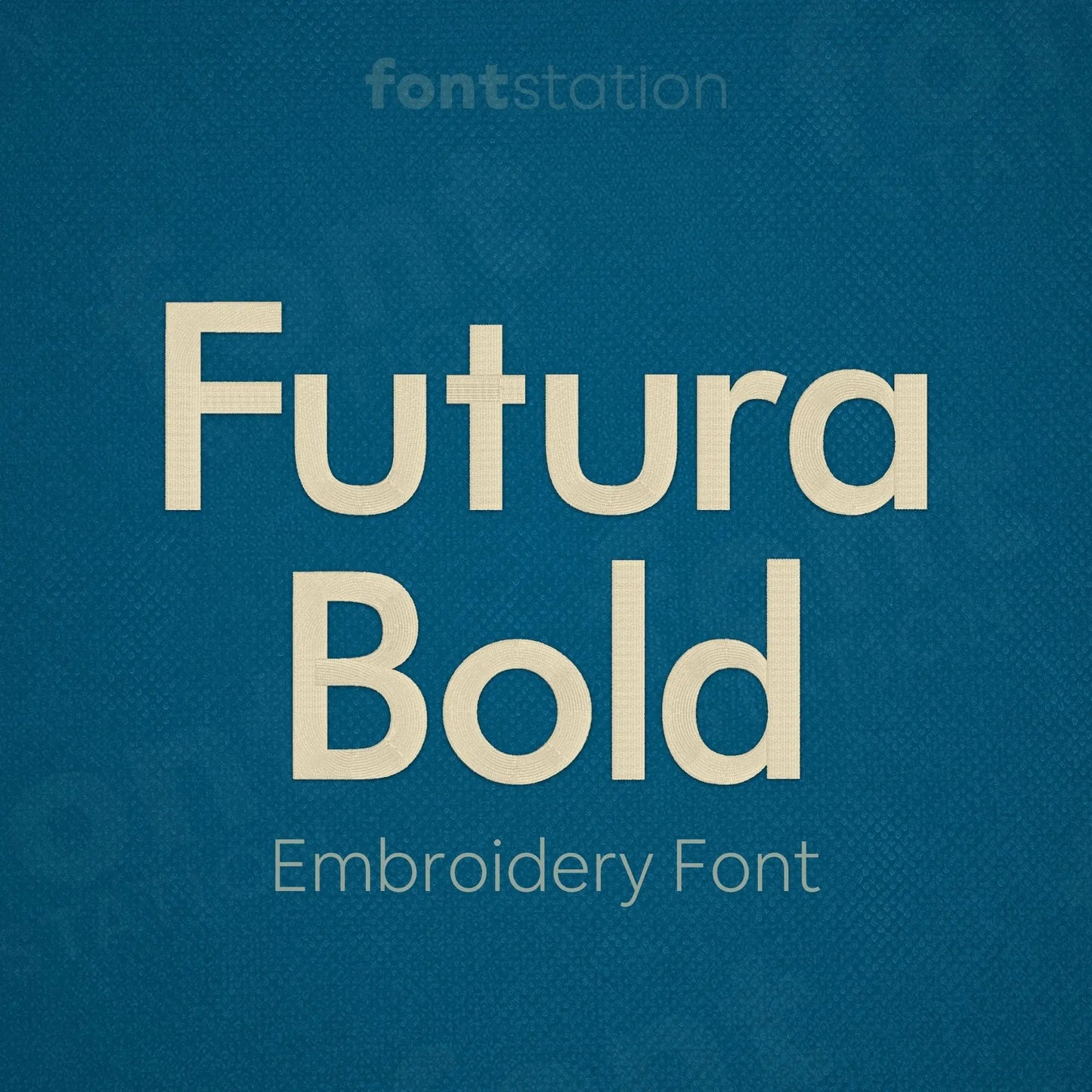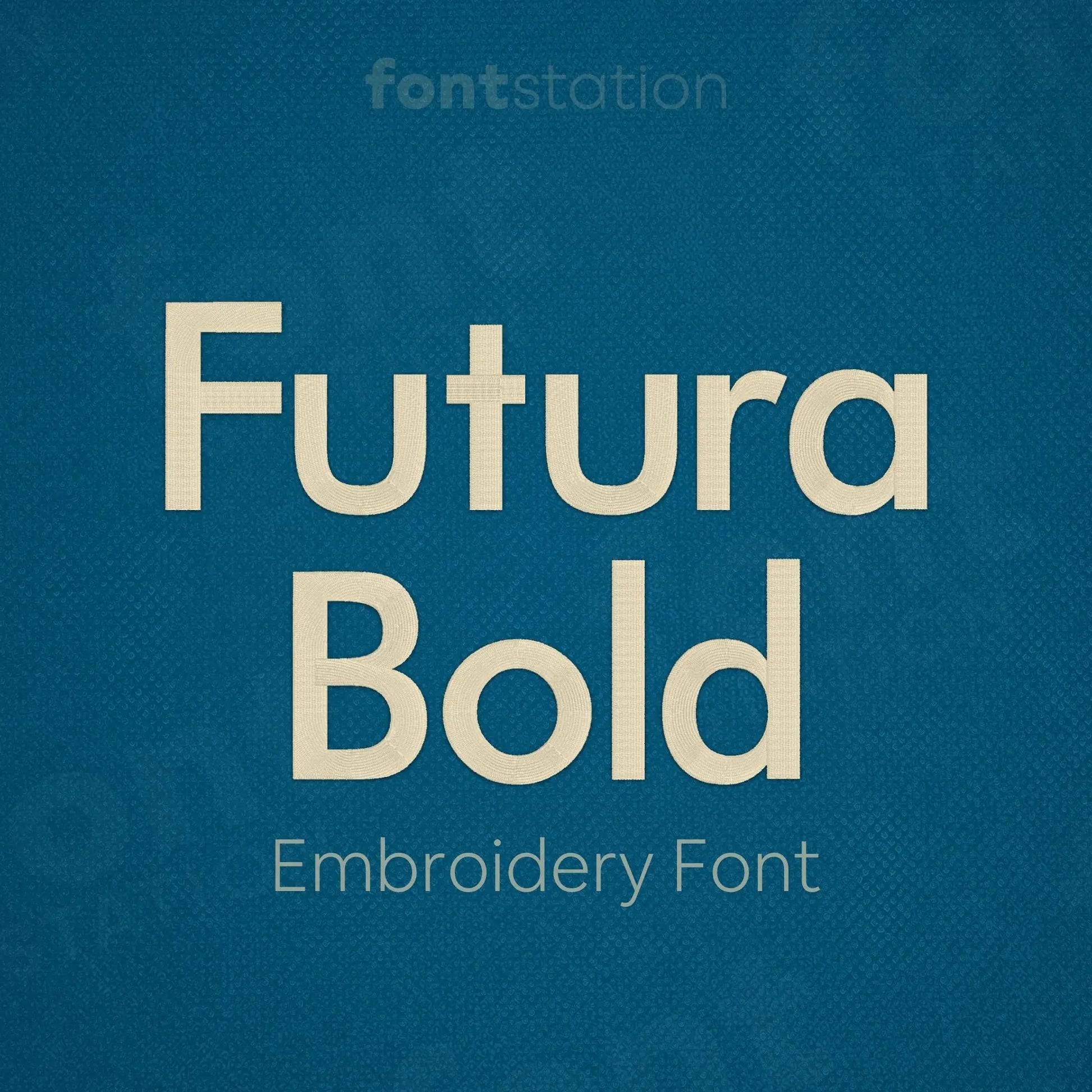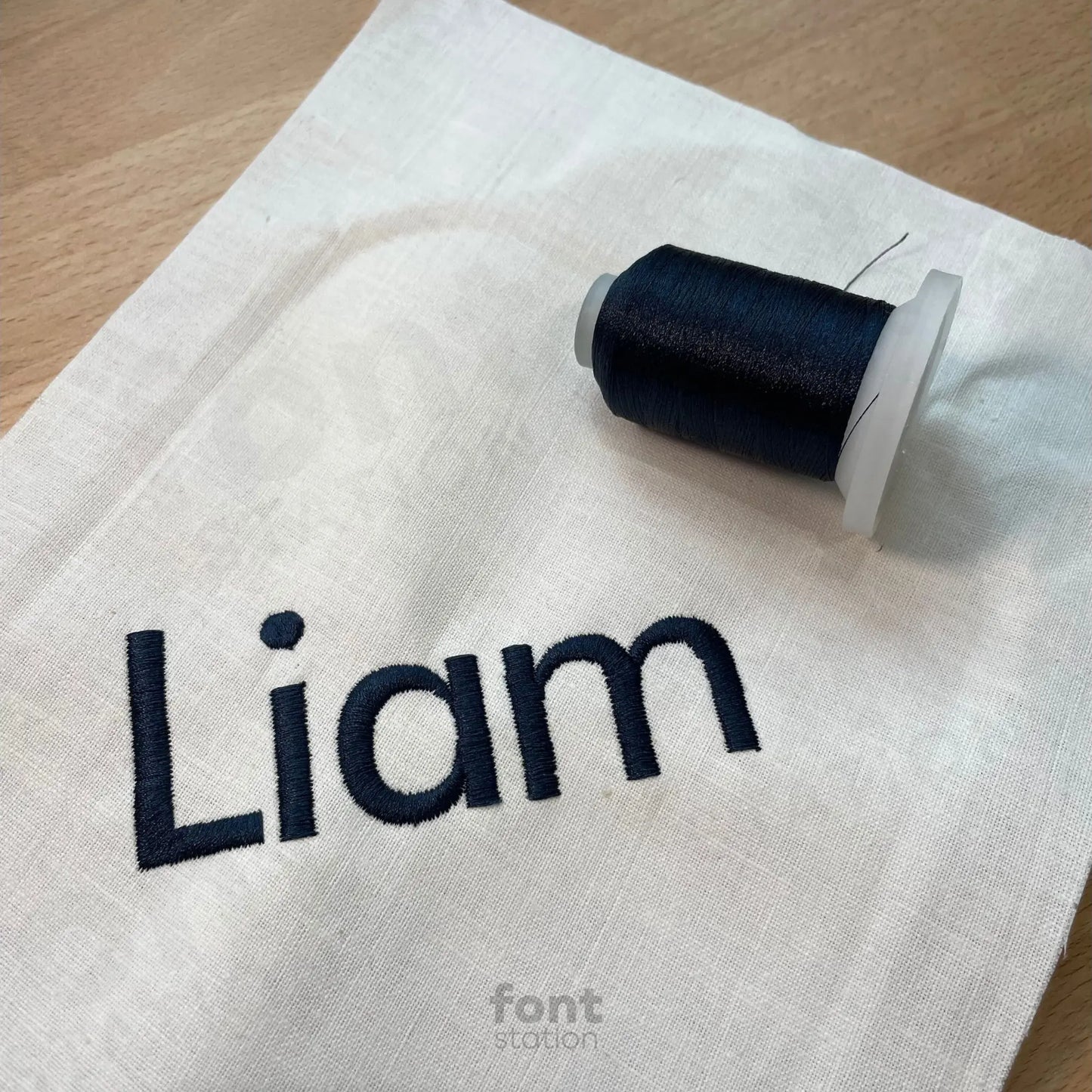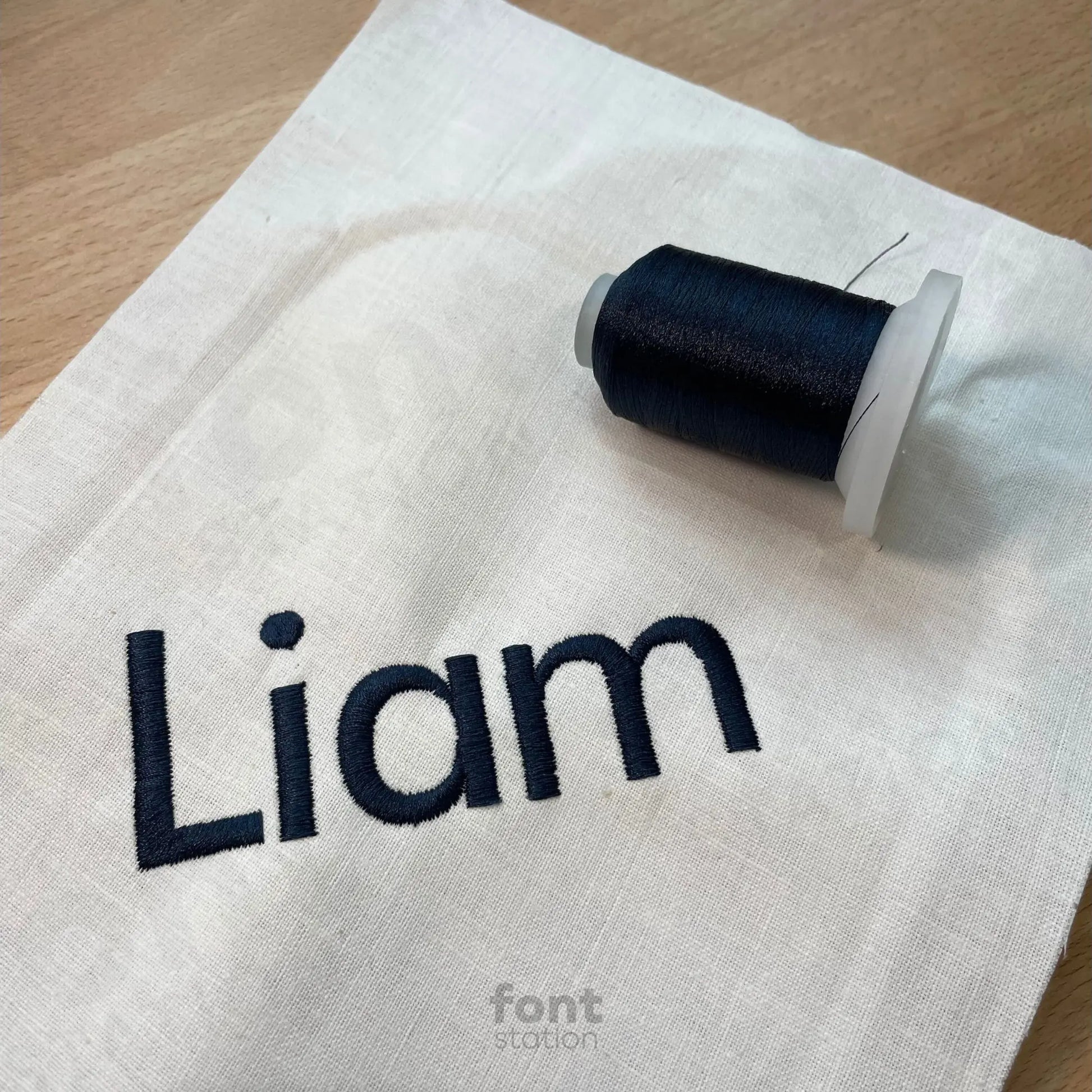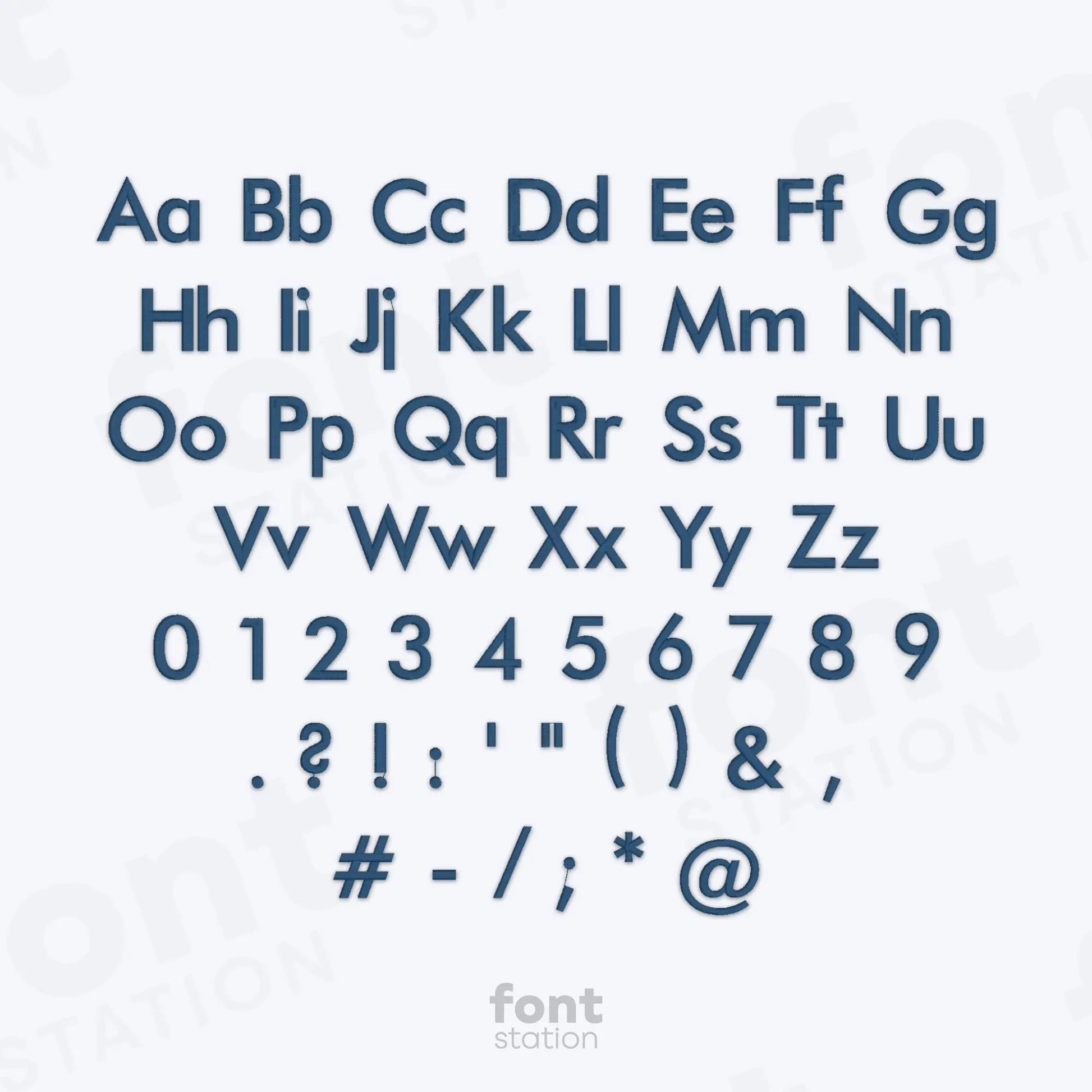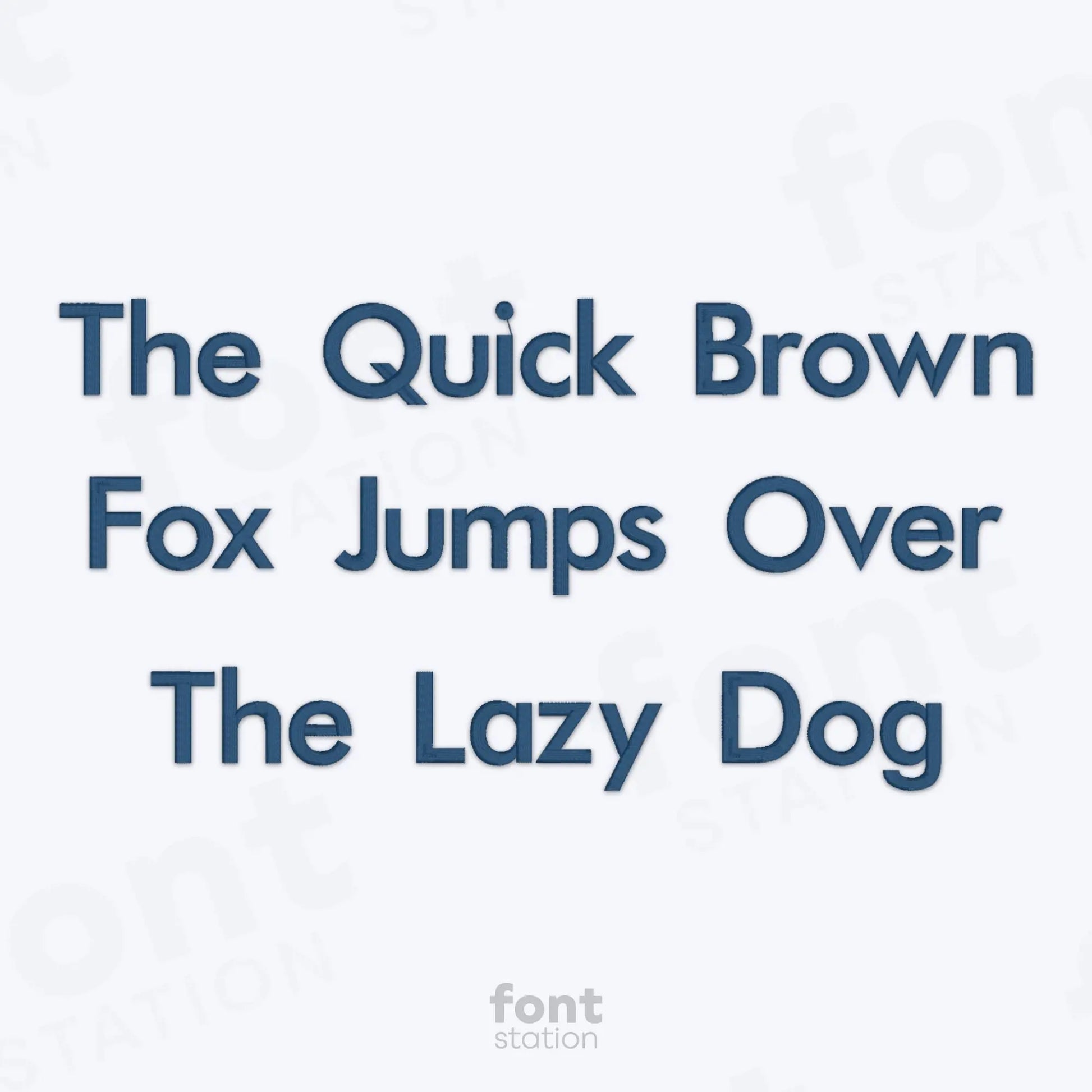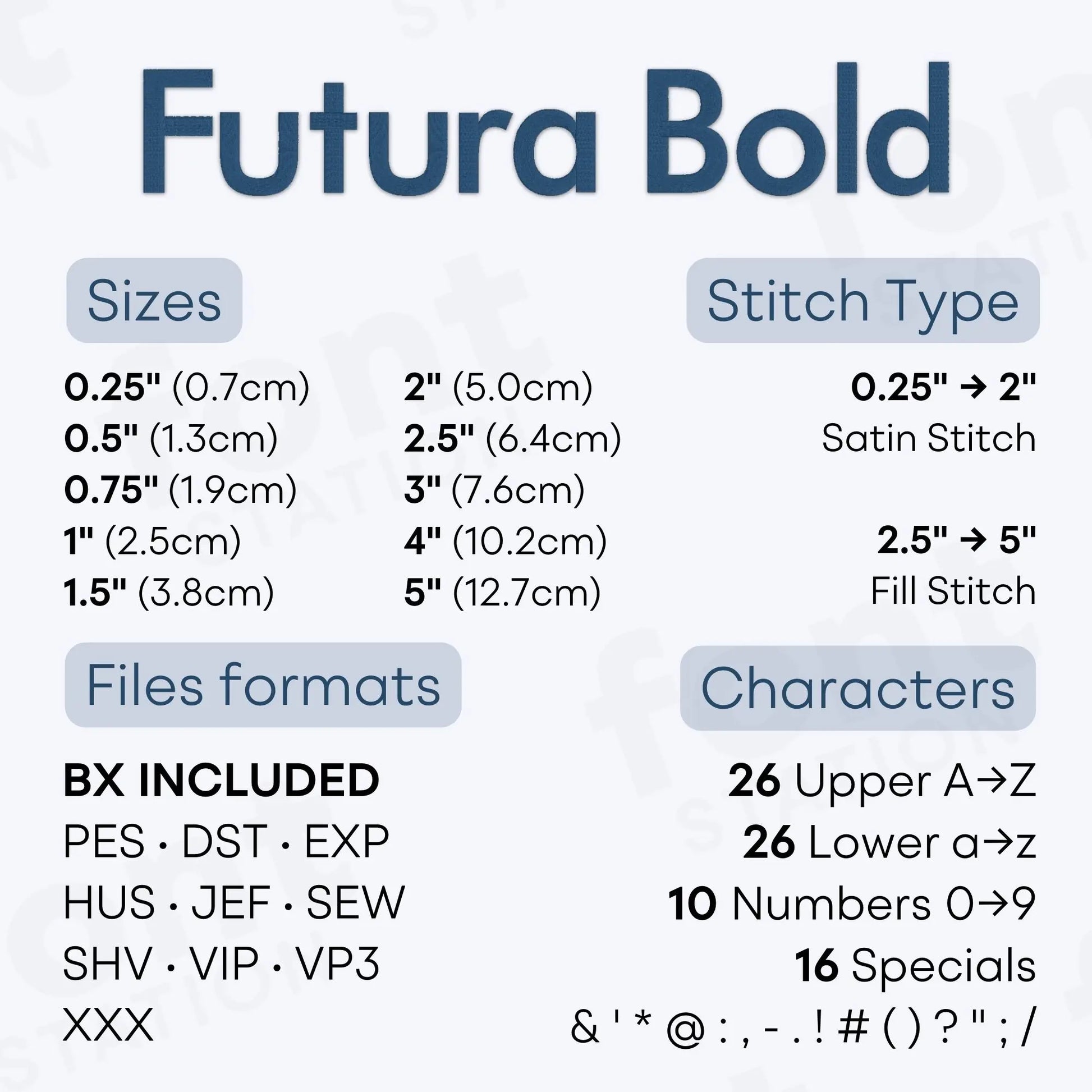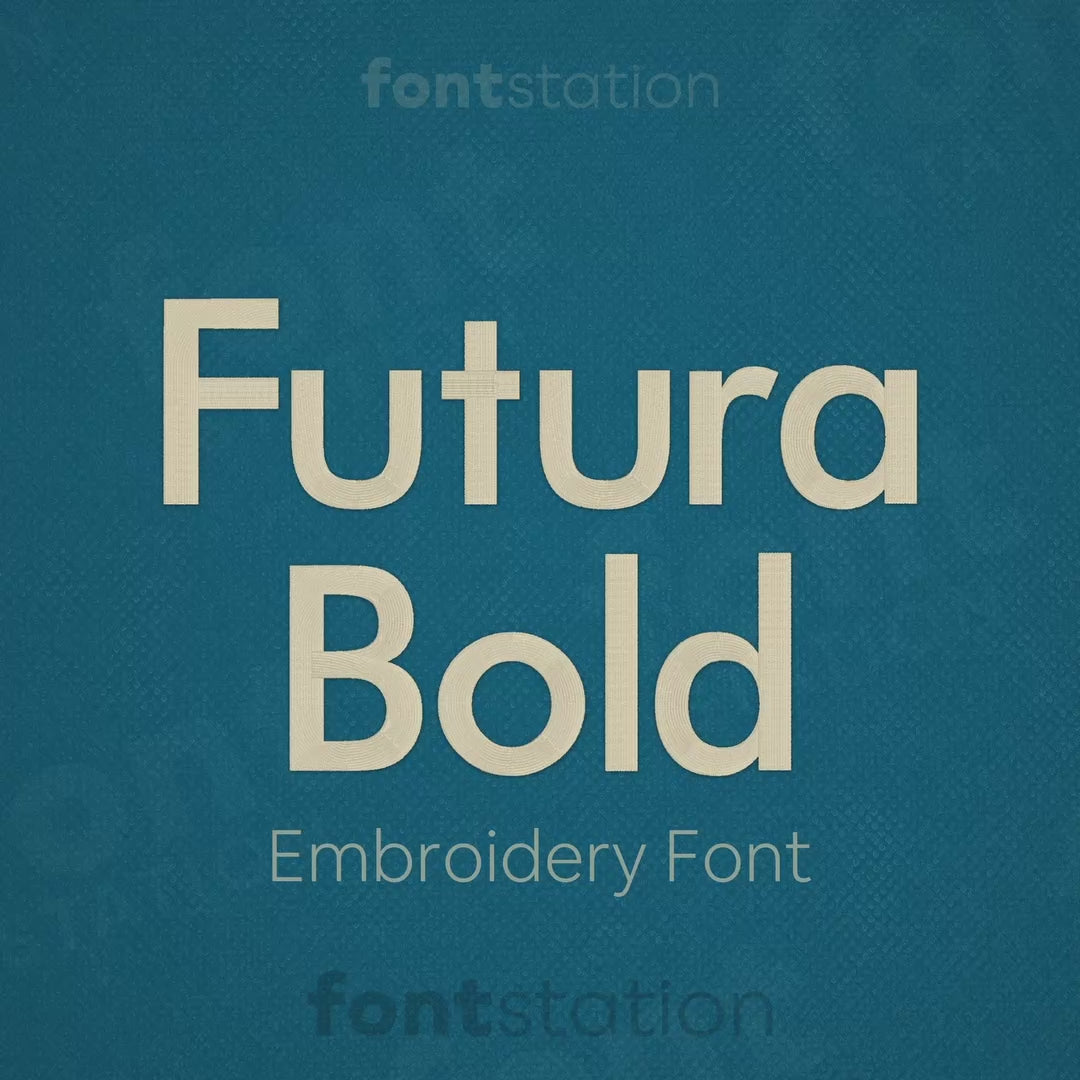
Futura Bold Embroidery Font
Our Futura Bold embroidery font features a modern block sans serif alphabet, perfect to stitch clean letters on any embroidery machine. Ideal for personalized designs, branding, or your next bold project, this font brings professional style to every stitch.
About the Futura Bold Embroidery Font
Our Futura Bold embroidery font adds a clean, modern style to your embroidery designs.
Featuring a classic block sans serif alphabet, the Futura Bold embroidery font offers bold, geometric letters that stitch with precision and clarity. Perfect for branding, monograms, bags, and bold statement pieces, this modern embroidery font delivers professional results on every project. It’s fully digitized for smooth stitching and compatible with all major embroidery machines. Includes formats like BX, PES, DST, JEF, EXP, VP3, HUS, and more.